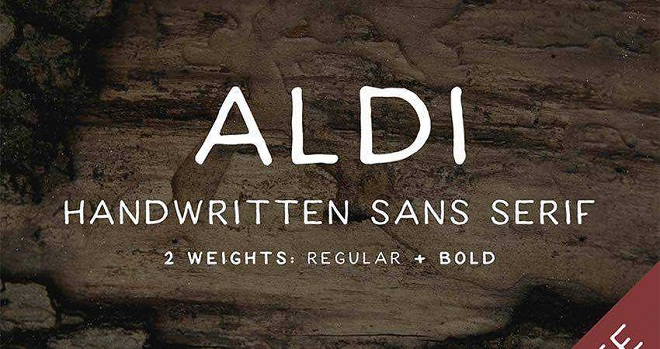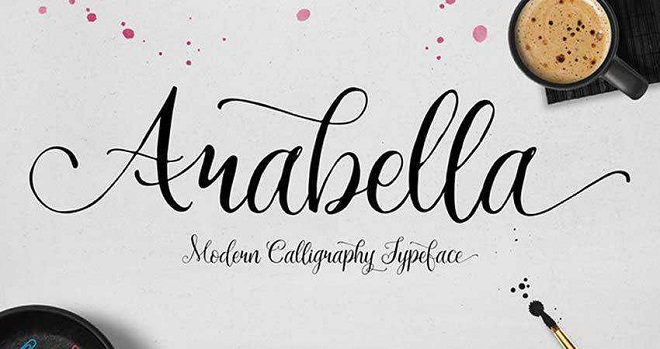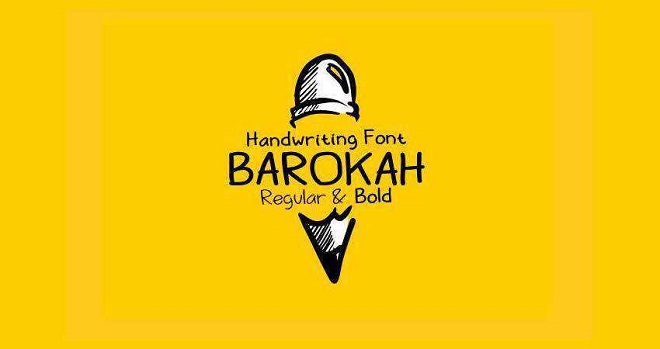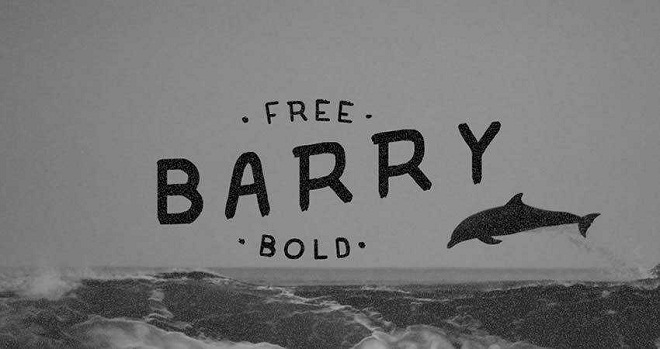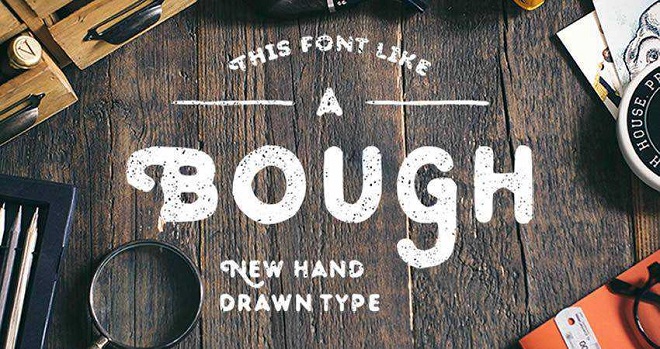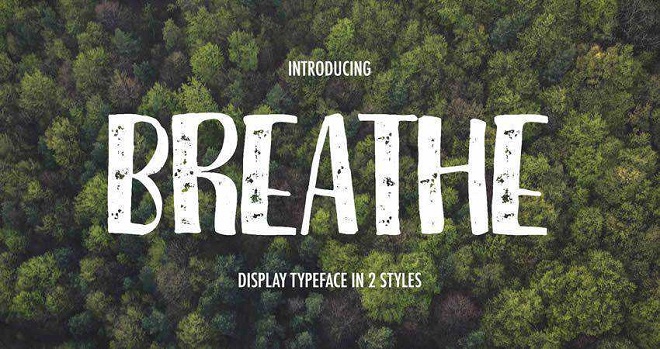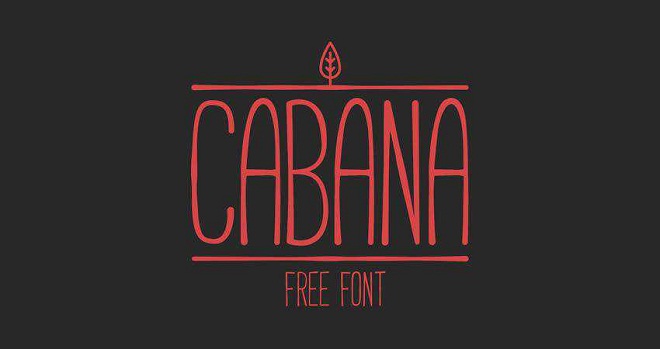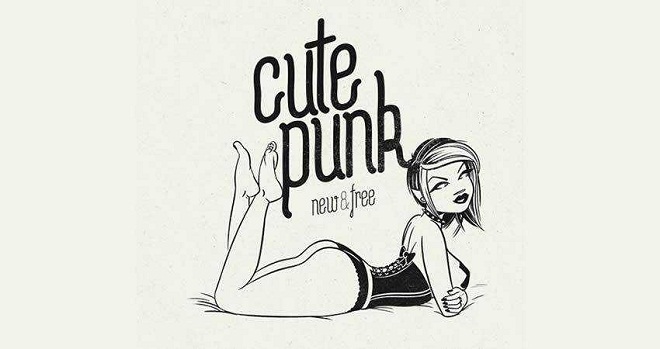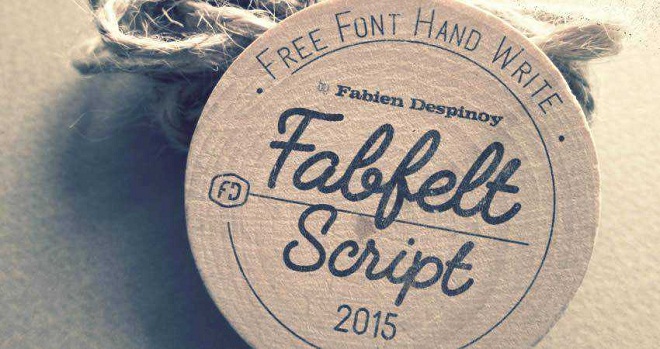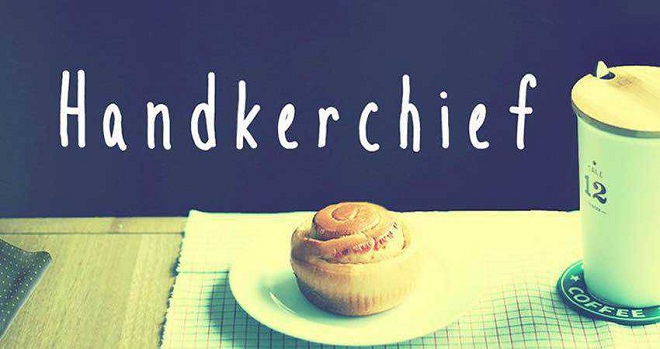
20+ Best Free Hand-Drawn Fonts for Creative Typography [2026]
Integrating hand-drawn fonts into your creative workflow is one of the most effective strategies for breaking away from the sterile, mechanical feel of traditional digital typesetting. These typefaces are meticulously crafted to emulate the organic flow and nuanced imperfections of human penmanship. By mimicking the pressure, tilt, and rhythm of a physical hand, they infuse your typography with an approachable, authentic, and inherently artistic soul.
Vintage Carosello Font
Jumper Script Fonts
Handkerchief Font
Watch Hand-Drawn Font
CABANA Handmade Font
Arabella Font
Waterlily Handwriting Font
Breathe Font Family
MAZAK Font
Nickainley Handwriting Font
Cutepunk Typeface
Barokah Display
El Capitan Hand-Drawn Font
Mathlete Hand-Drawn Font
ALDI Handwritten Sans-Serif
Handmade Hipster Bellaboo
Liberal Hand Serif Font
Barry Font Bold
Bough Hand-Drawn Typeface
Fabfelt Handwritten Script
SUNN Handwriting Font